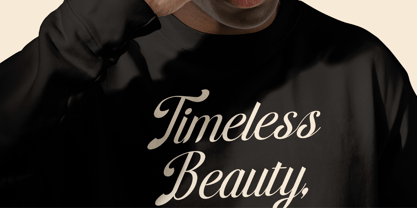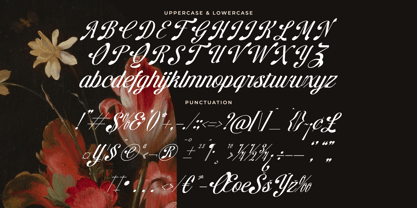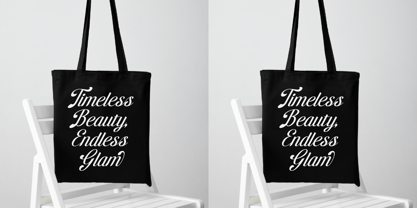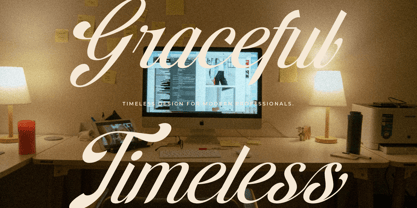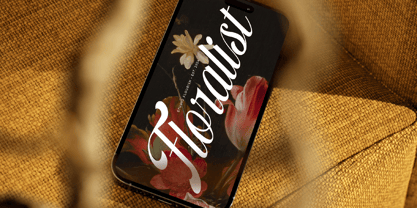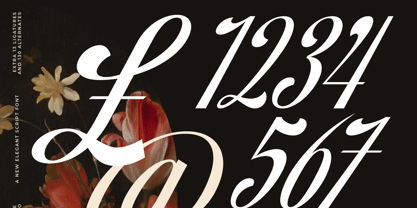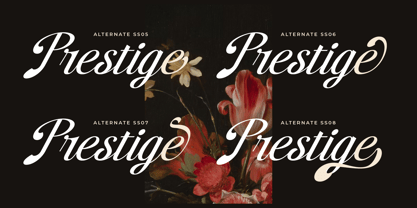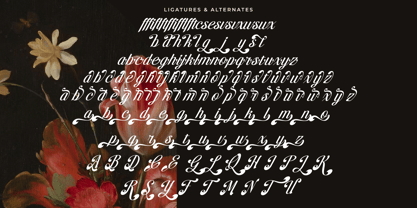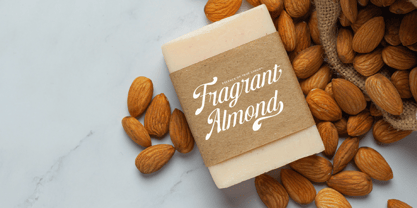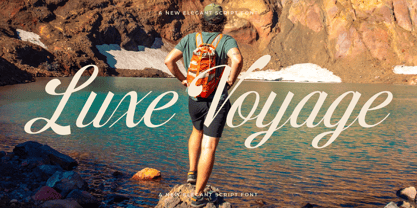
Brellight
by Timelesstype Studio
The Brellight Font Family was designed by Heru Utama Putra and published by Timelesstype Studio. Brellight contains 1 styles. More about this family
Brellight - New Elegant Script Font , from Timelesstype, Suitable for any projects such as: logos, branding projects, homeware designs, product packaging, mugs, quotes, posters, shopping bags, t-shirts, book covers, name card, invitation cards, greeting cards, label, photography, watermark, special events, and all your other luxury and beautiful projects that need a Luxury Script taste.